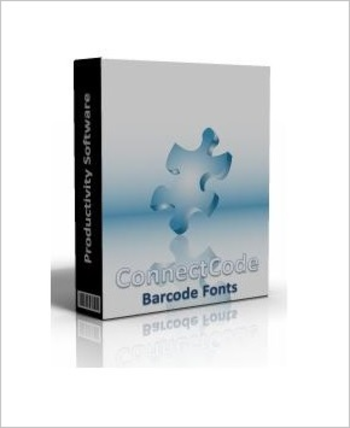
ConnectCode Barcode Software and Fonts Description
ConnectCode Barcode Software and Fonts is a professional True Type, Open Type and Web Open Font Format (WOFF) barcode fonts package that enables the creation of of standards-compliant barcodes in Excel, Word, Access, .Net, Java, Web, Javascript, TypeScript, iOS, Android, Windows Mobile, Crystal Reports, MFC, Oracle, Android, Windows Phone, Reporting Services, Windows Azure, Cloud and Windows Store Barcode & Label App. The use of font technology to generate barcodes is well known in the auto-id industry and ensures generation of barcodes of the highest quality that meet the strictest industry requirements. When a font is printed, it rasters to the resolution of the printer and will not be limited to the Dots per Inch (DPI) of the devices screens. A font is also available in almost all computer and mobile systems. This enables the integration of ConnectCodes barcode solution in third party applications quickly and easily.ConnectCode is well known in the industry for providing barcode software and fonts that are trusted and highly regarded by many Fortune 500 companies and organizations around the world. Many companies have adopted ConnectCodes barcode products for its accuracy, robustness and ability to reduce time and effort required for clearing institutional audits and third-party barcode verifications. The team consists of very talented personnel from both the auto-id and software industry. All software products are developed in house and adhere to the "Elegantly Simple" design principles.